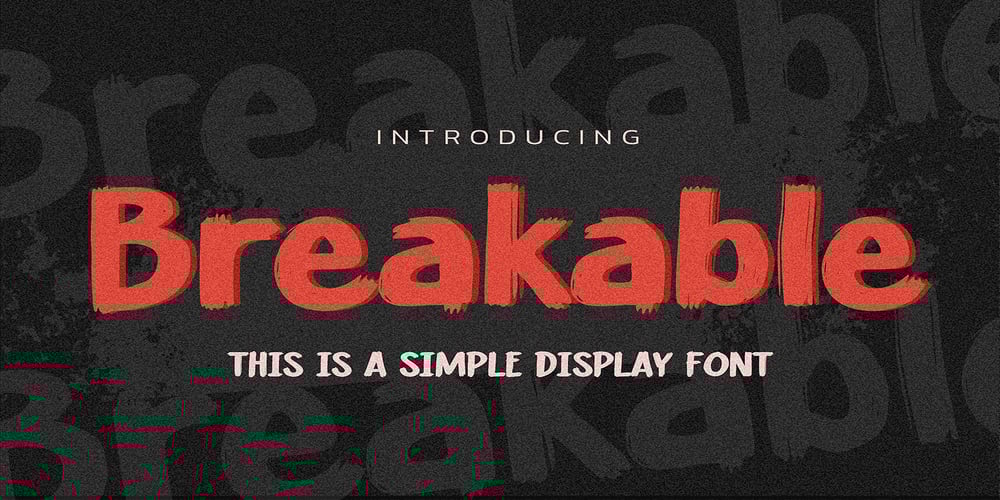
Breakable
Breakable font
Breakable Font Family was designed by Abdul Malik Wisnu, Anang Fibriyanto and published by Gassstype. Breakable contains 1 styles and family package options. Hello Everyone, introduce our new product Breakable This Is a Simple Display Font with a natural feel. This handmade font will make your design has a beautiful natural touch for each details. It is perfect for any design project as Invitation,logo, book cover, craft or any design purposes.This font is PUA encoded which means you can access all of the magical glyphs with ease!